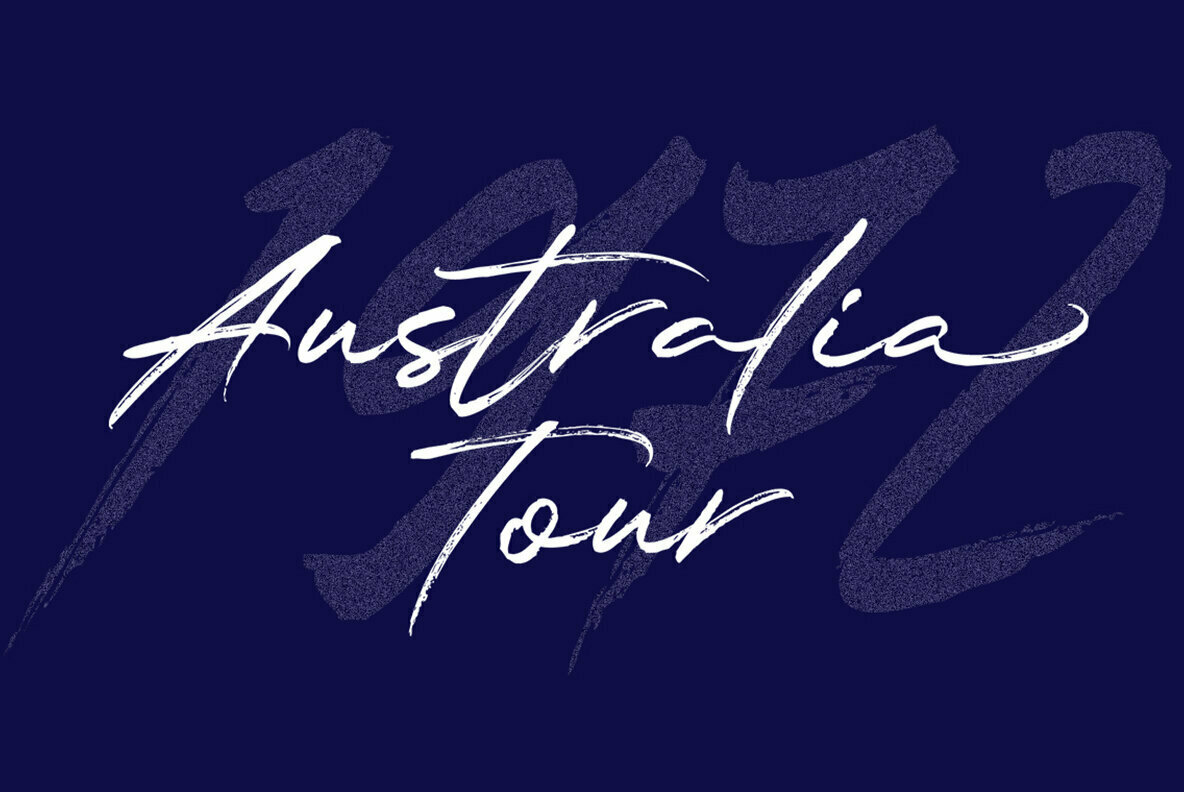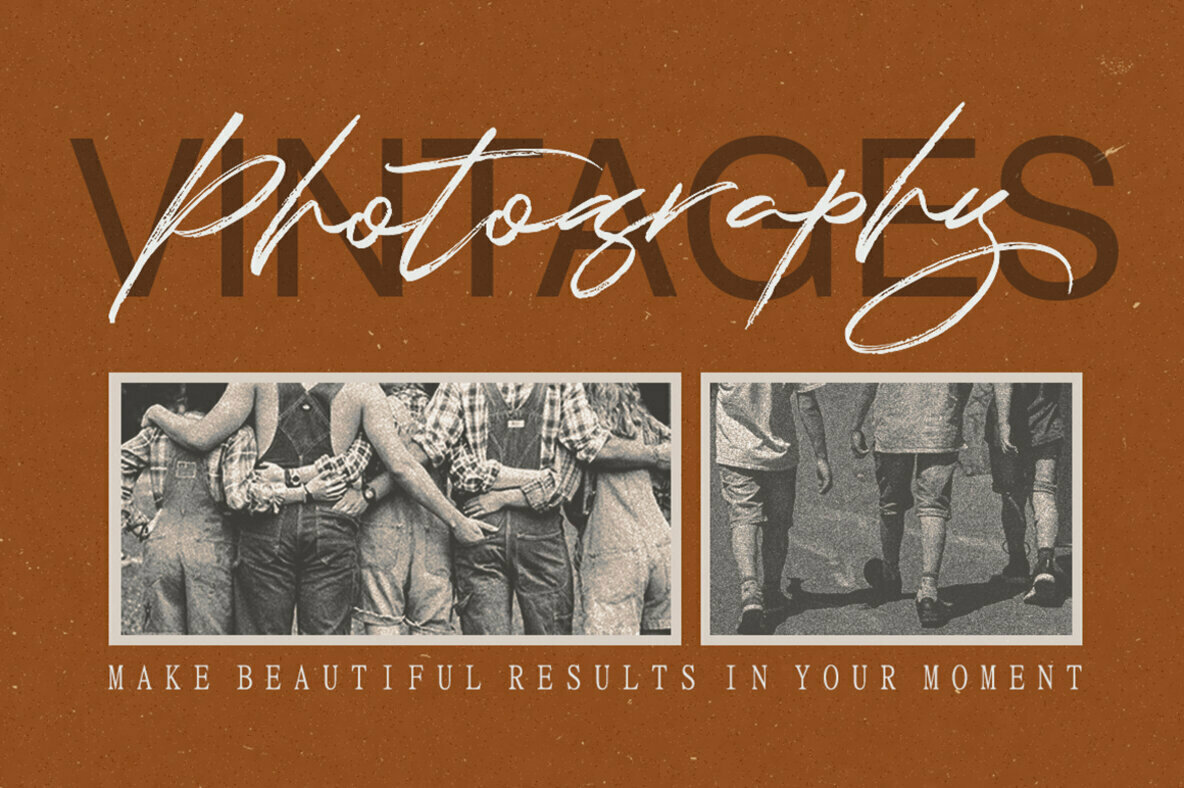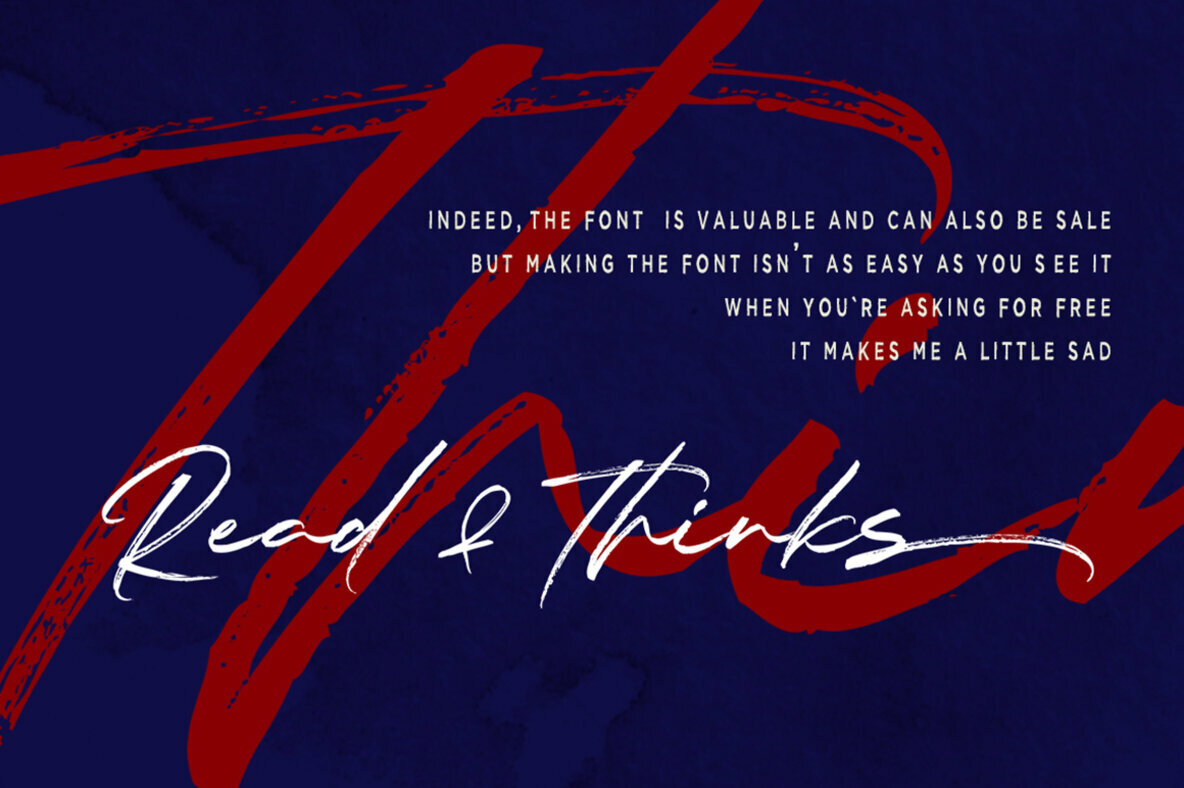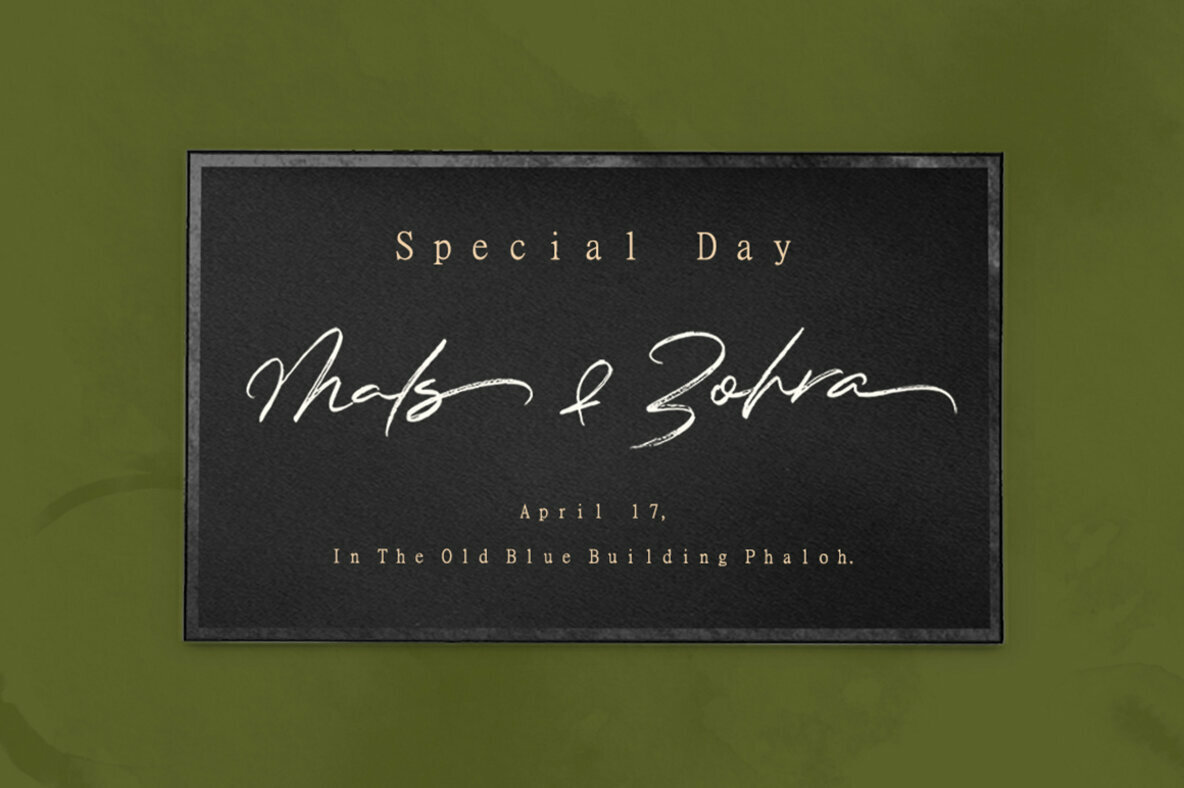
Fragile Script Font
Fragile Script
The Fragile Script font by Dhan Studio offers a contemporary yet organic touch to your design projects. Its handmade aesthetic features an irregular baseline, providing a unique, humanistic feel that stands out in digital and print media. Features:Fragile Script: A Textured Brush Font With Character